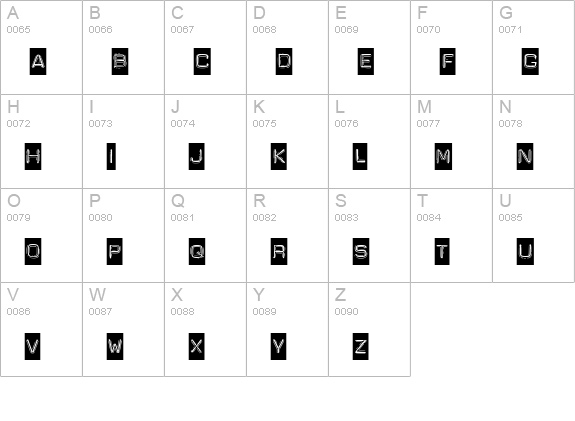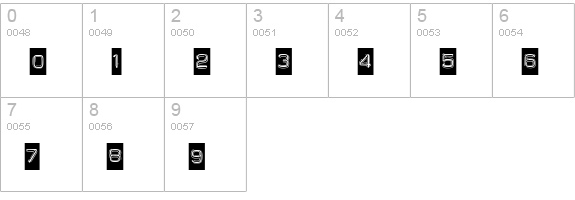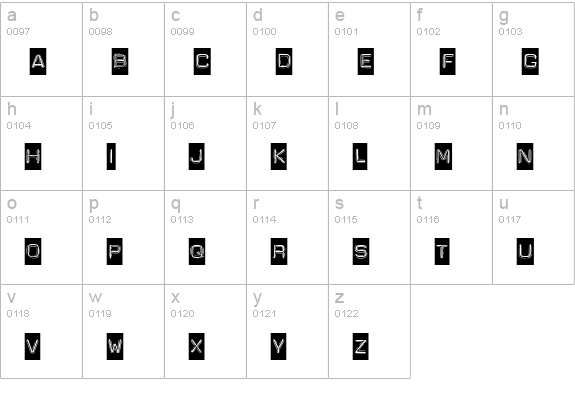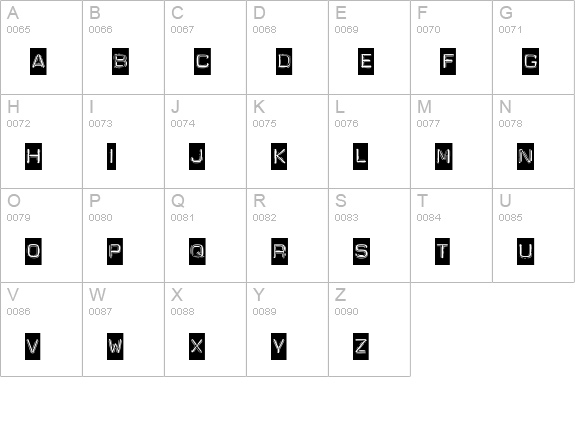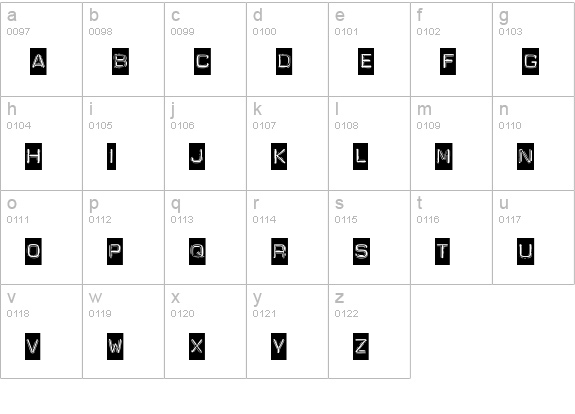
Dymo Font Details
Dymo font is a unique and eye-catching typeface that exudes a sense of modernity and sophistication. Its bold and clean lines make it perfect for use in a variety of design projects, from logos to posters to packaging. The Dymo font is versatile and easy to read, making it an excellent choice for both print and digital applications. The best part? Dymo font is completely free to download at FontsMarket.com, making it accessible to designers of all skill levels. Whether you're a seasoned professional or just starting out, this font is sure to elevate your designs and make a lasting impression. Don't miss out on this incredible opportunity to enhance your projects with the stylish and contemporary Dymo font.